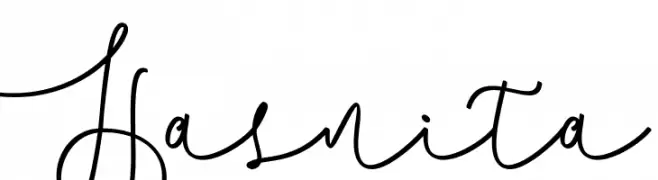
An elegant, flowing script font with bold, cursive strokes.
A geometric, modern font with thin, uniform strokes and a structured appearance.
A whimsical, handwritten cursive font with elegant loops and smooth curves.
A flowing, cursive script font with elegant and connected letters.
A graceful and elegant script font with flowing, cursive letterforms.
An elegant script font with flowing curves and decorative swashes.
A modern, handwritten font with a fluid and elegant style.
A playful, hand-drawn font with a whimsical and slightly spooky style.
A bold, jagged font with an eerie, horror-inspired design.
A lively, cursive handwritten font with a modern, whimsical style.